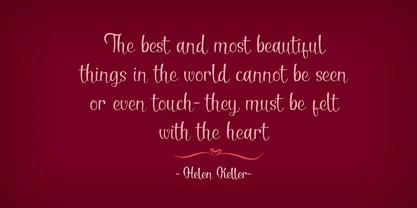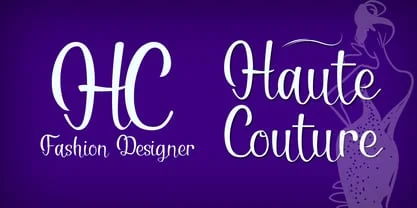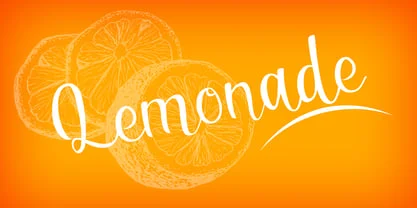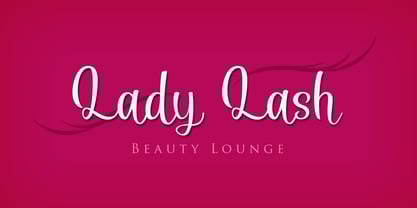
Serenita Font
There is a particular satisfaction in finding a typeface that delivers distinctive character without sacrificing readability without compromise. Serenita consistently provides it. The typeface brings an elegant, calligraphic sensibility to a broad range of creative disciplines, with refined proportions and careful stroke modulation that holds up whether the work is print-first or screen-first.
In practice, Serenita proves particularly effective for luxury stationery, fashion editorials, packaging design, social media graphics, brand identity systems. Designers reaching for it find that the type decisions feel resolved rather than laboured — a useful quality when client timelines are tight.
The range of applications extends to bridal materials, event signage, annual reports, advertising campaigns. That breadth is deliberate: the proportions and spacing were stress-tested across a wide range of mock briefs before the typeface was finalised.
Serenita sits comfortably alongside both classic and contemporary typefaces in multi-font hierarchies. It takes direction rather than competing for attention — a quality that experienced designers know is harder to find than it appears.
In-house creative teams at consumer brands find Serenita a reliable choice for projects that demand both personality and restraint. The design avoids the self-conscious quirkiness that dates quickly, settling instead for considered distinctiveness that holds up over time.